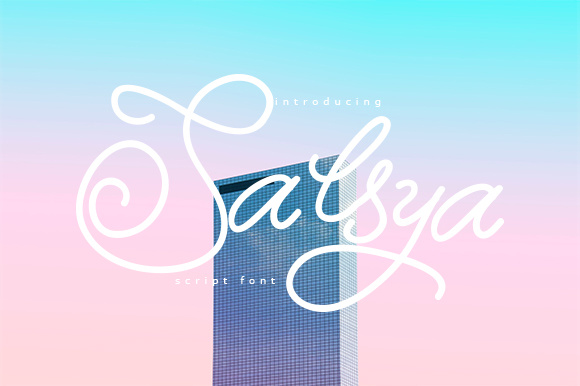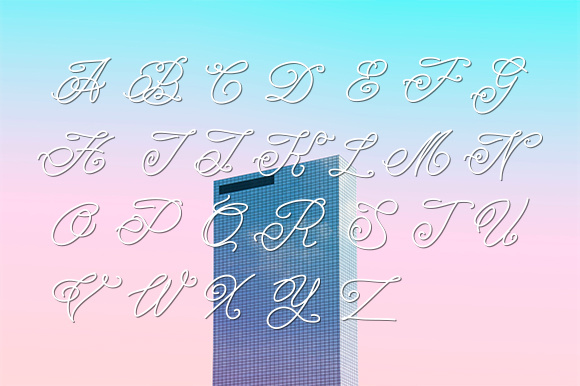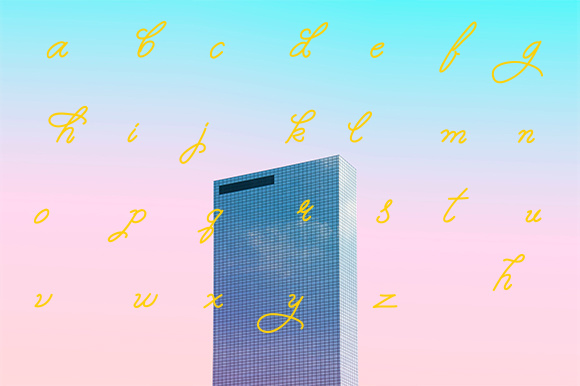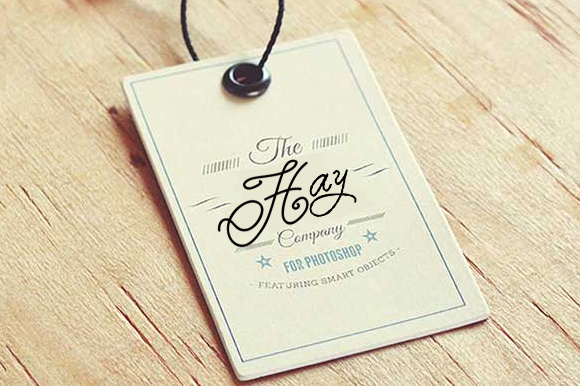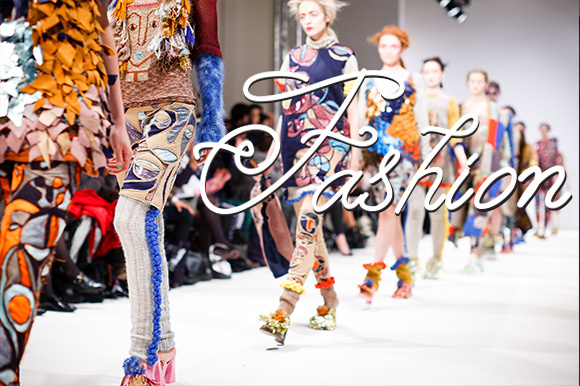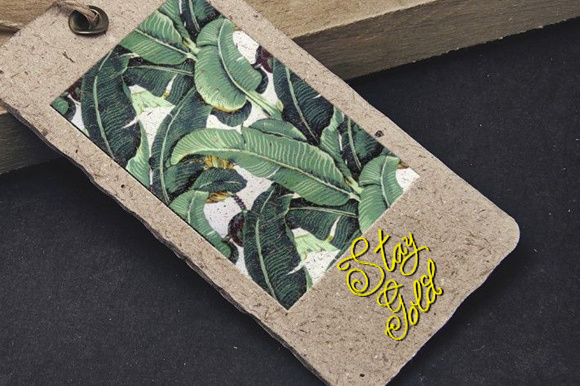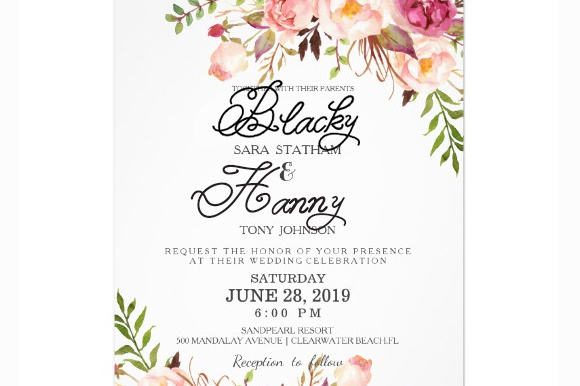
Salya Font
About Salya Font
Salya is a new casual script font. Whether you need a modern vision to all your texts or a vintage feeling, Salya has the look for you. Salya is great for any kind of usage, from advertising materials to packaging or posters. Salya is offering a statement handwritten font with textured lines and multiple unique styles.